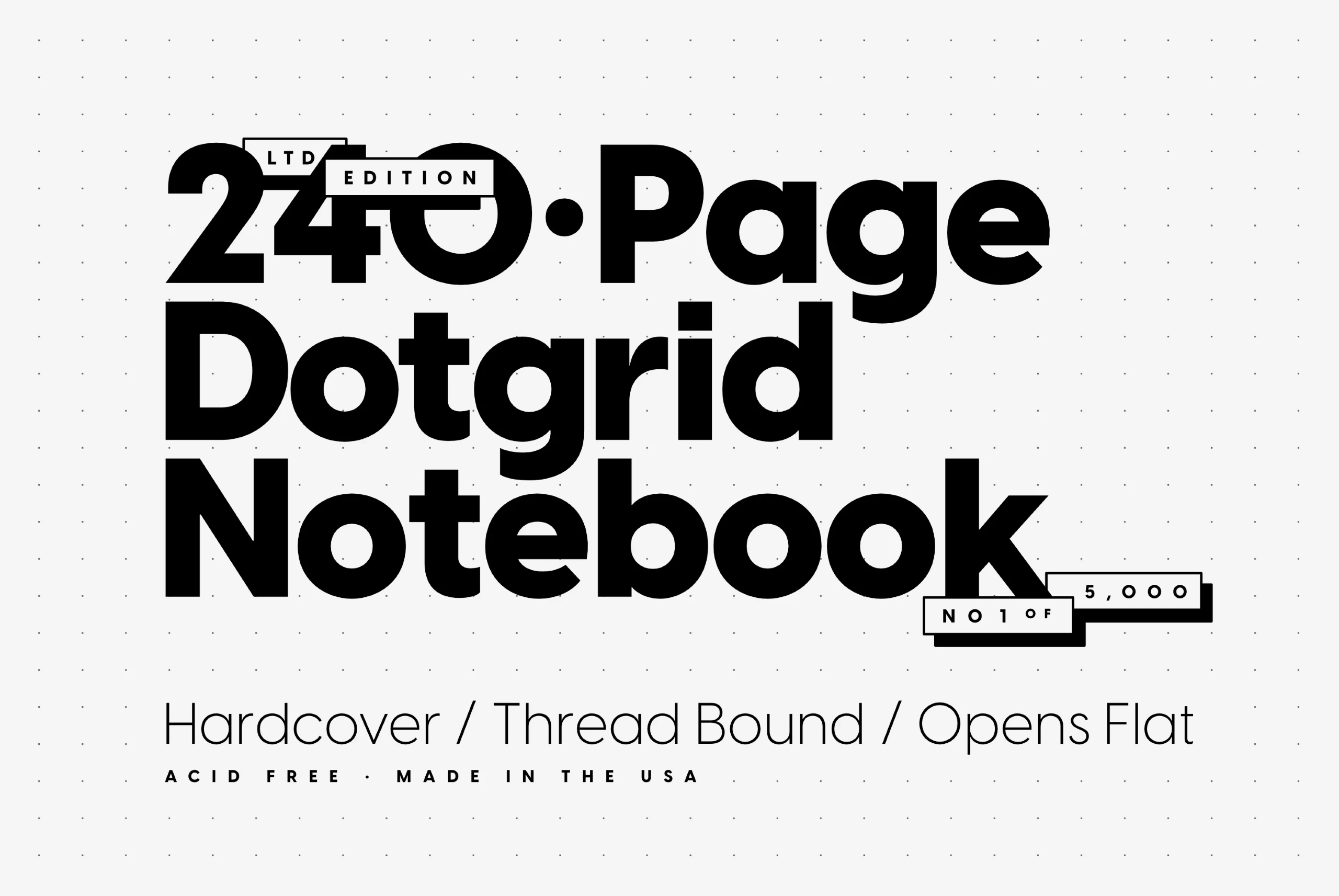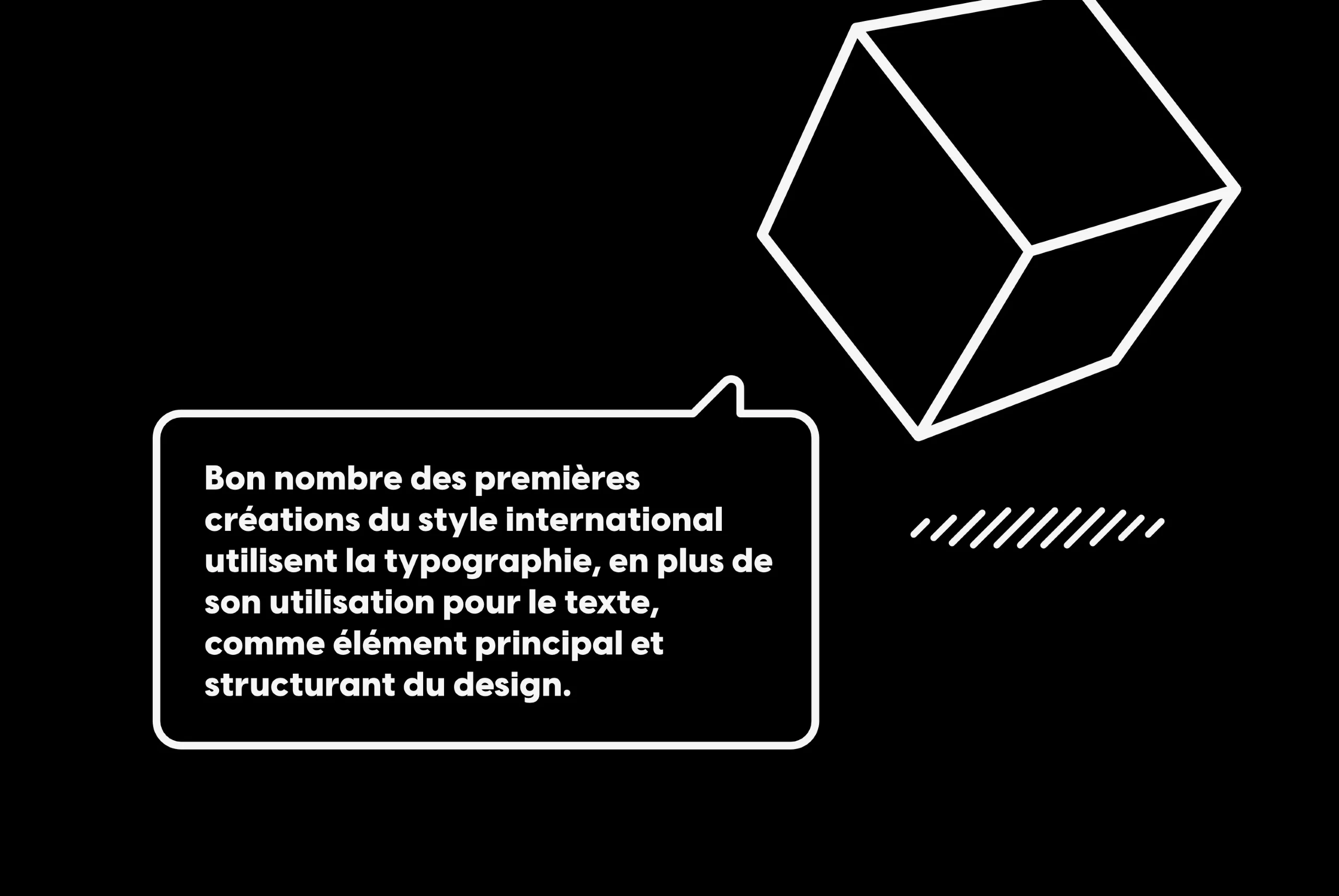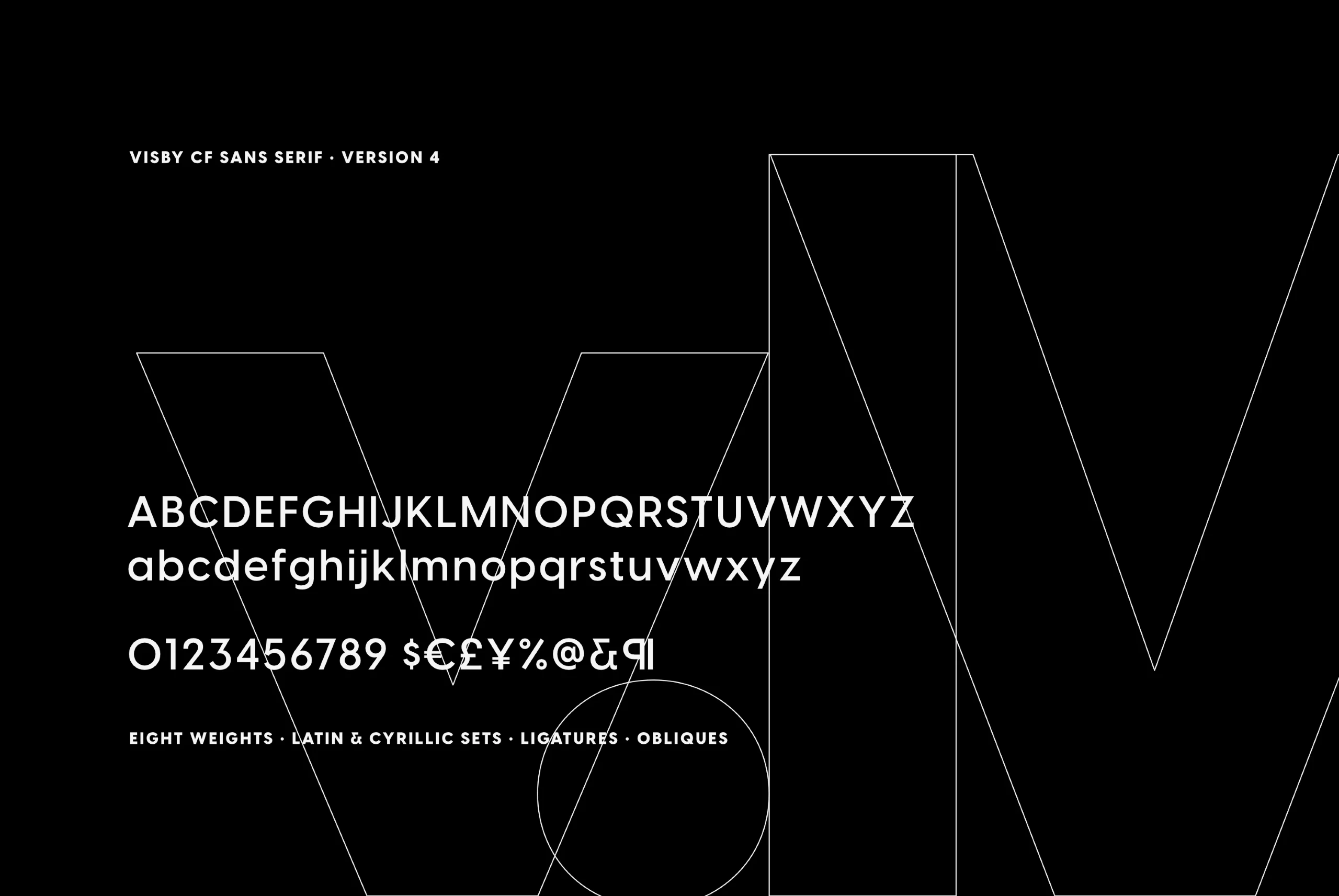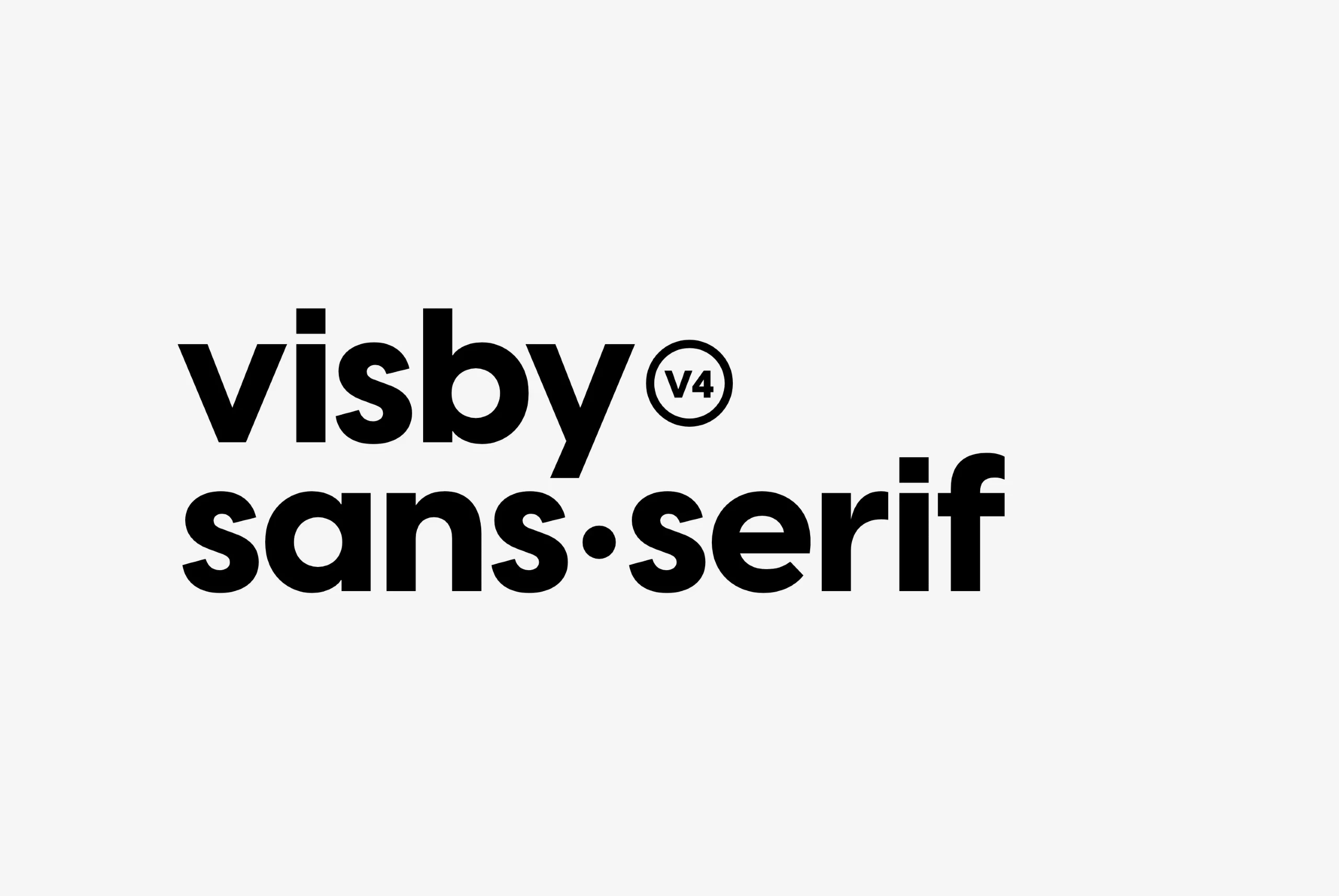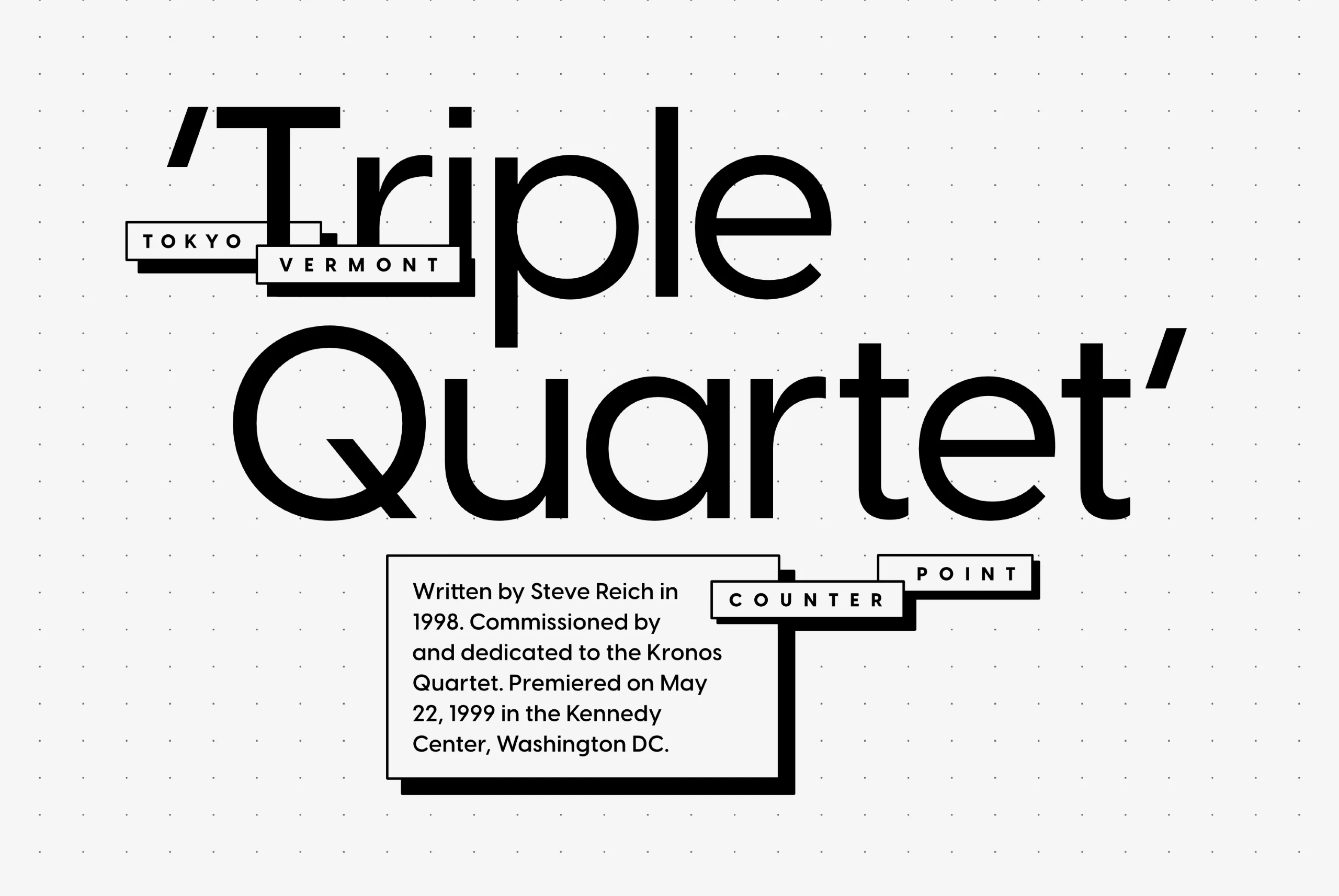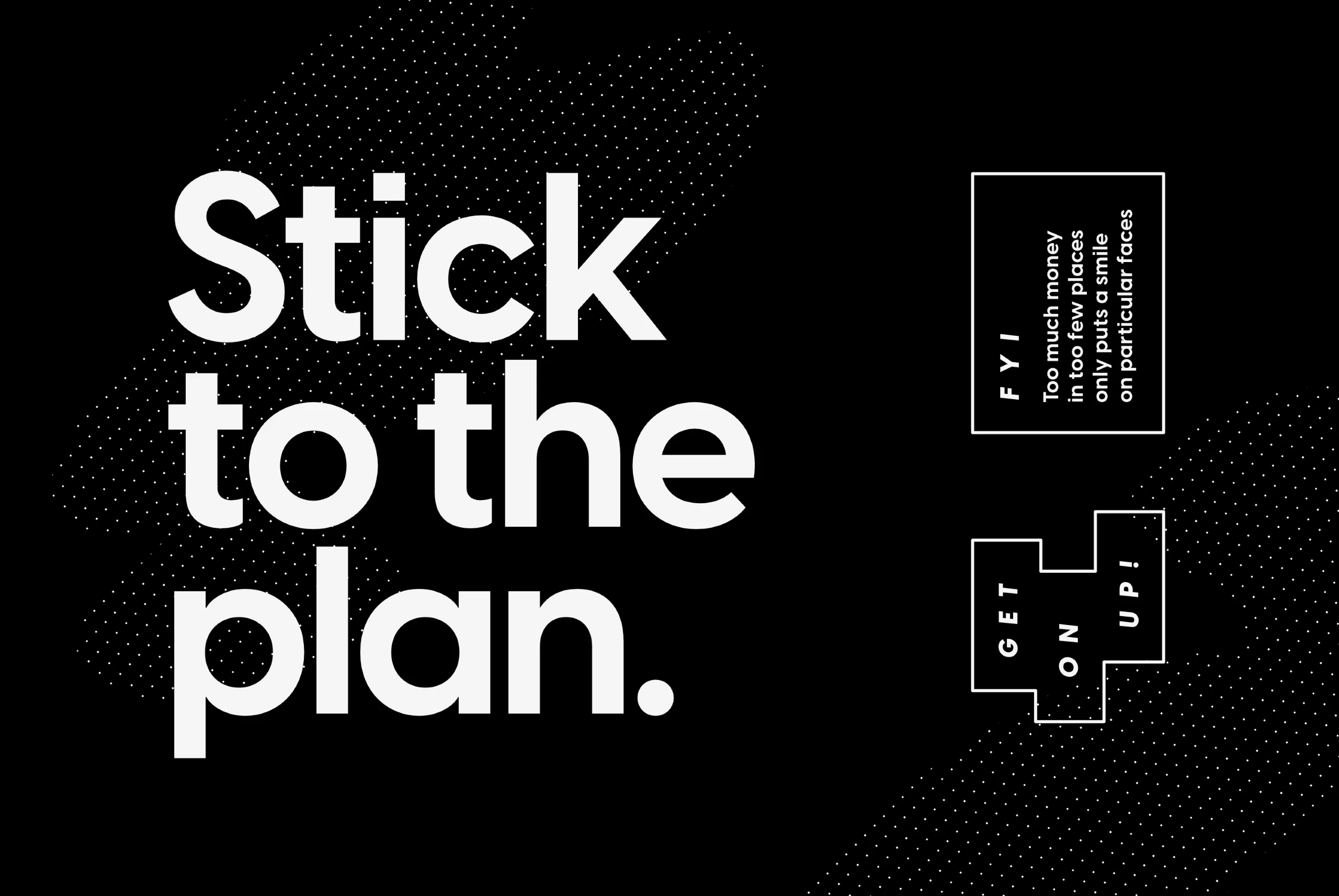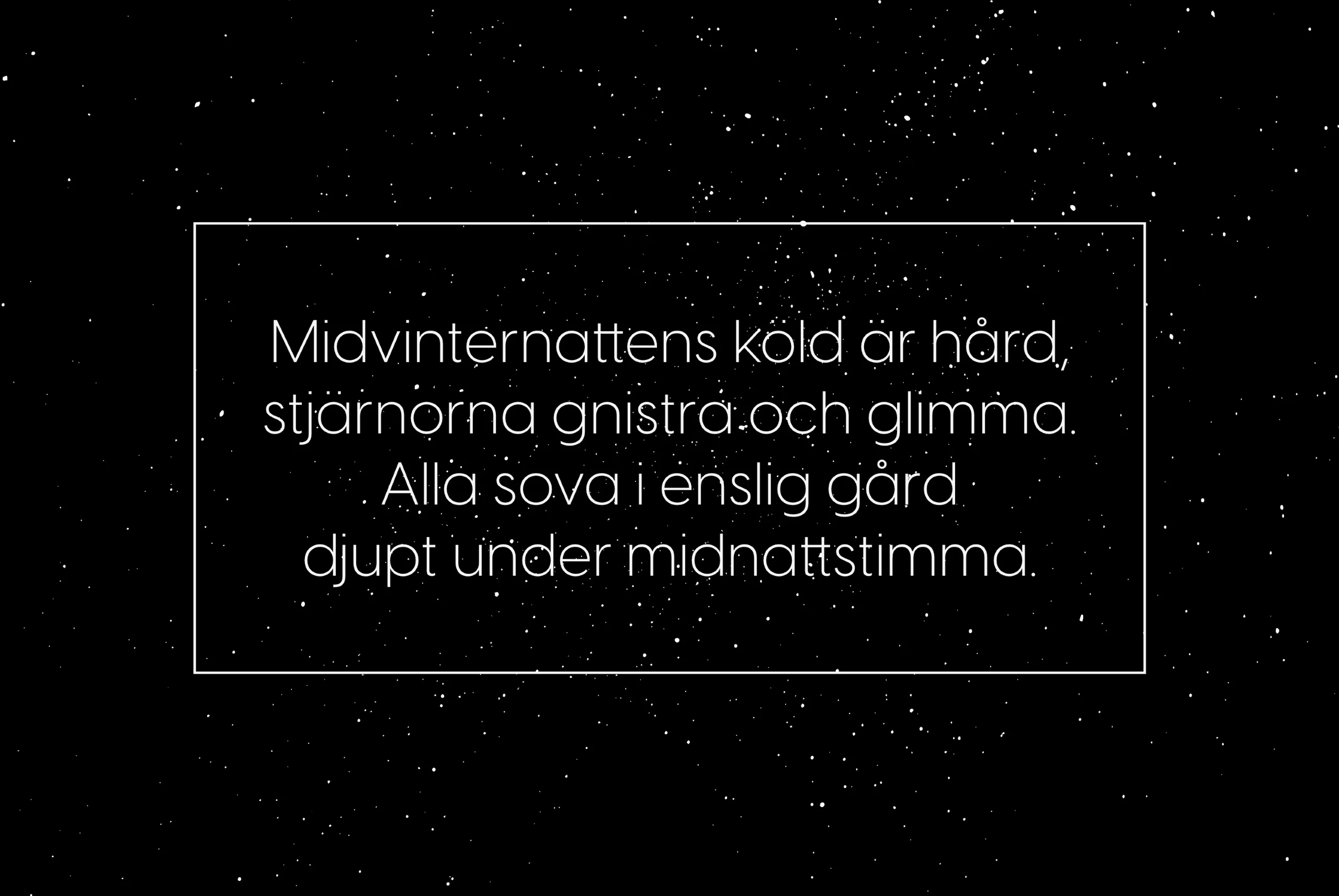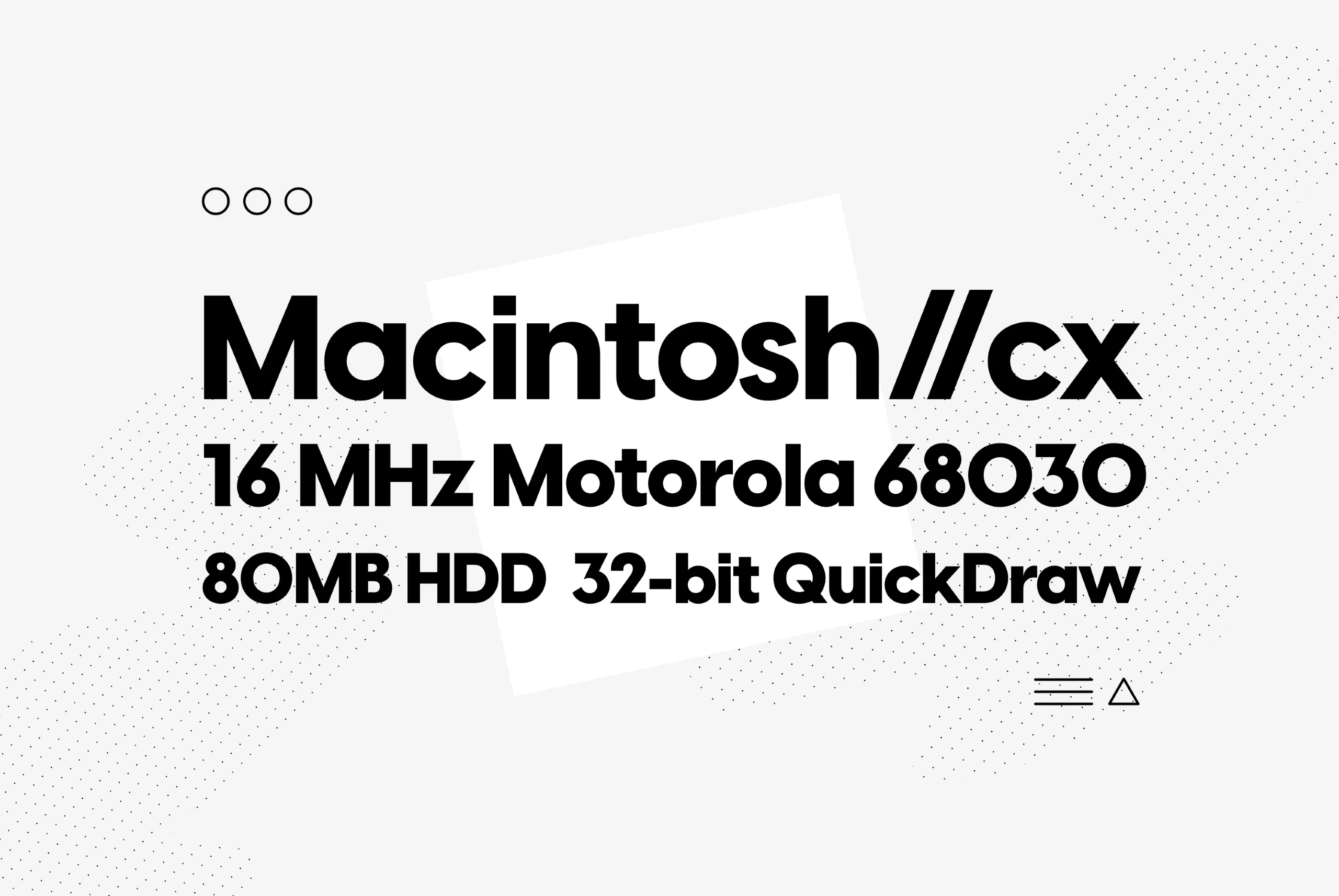
Visby
Friendly and charismatic in lowercase; sophisticated and authoritative in uppercase. Visby CF is a geometric font family inspired by the stark beauty and crisp air of the Arctic North. Hard lines and sharp corners mesh with smooth, rounded forms, while subtle humanist influences add warmth.
eight Weights in Latin & Vietnamese • Cyrillic Script
Language support includes Belarusian, Bulgarian, Catalan, Chinese Pinyin, Croatian, Czech, Danish, Dutch, English, Filipino, Finnish, French, Fula, German, Hungarian, Indonesian, IPA, Italian, Latvian, Macedonian, Malay, Maltese, Norwegian, Polish, Portuguese, Romanian, Russian, Serbian, Slovak, Slovenian, Spanish, Swedish, Turkish, Ukrainian, Uzbek, Vietnamese